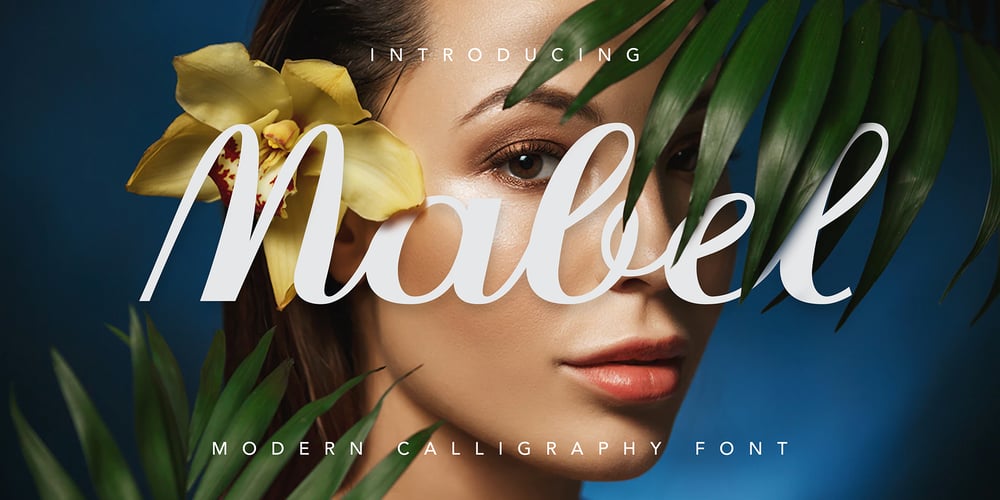
JH Mabel
JH Mabel font
JH Mabel Font Family was designed by Joe Hatem and published by JH Fonts. JH Mabel contains 3 styles and family package options. JH Mabel is a modern cursive typeface; it has three weights: light, medium and bold.It is a smart type and consists of extra characters to simulate real handwriting. Typical use: branding, greeting cards, long runing text.